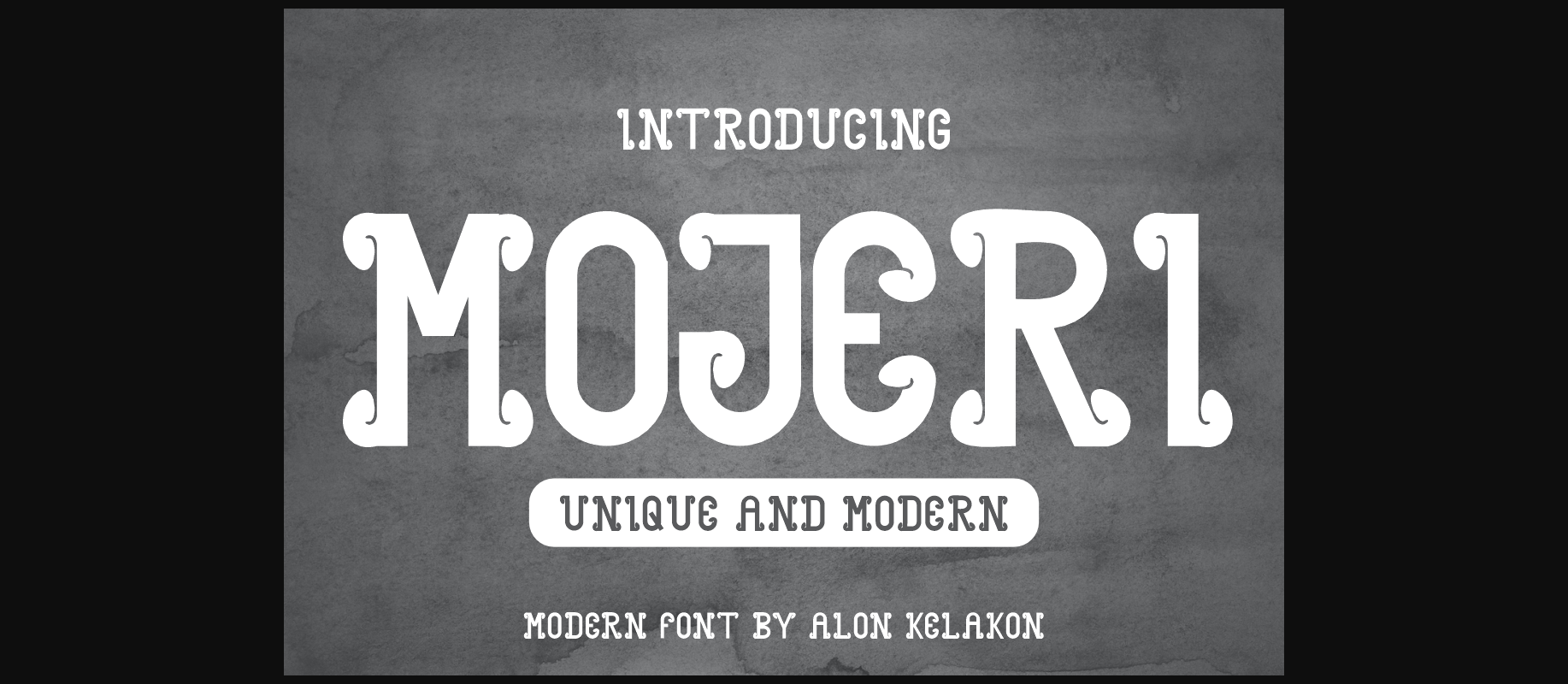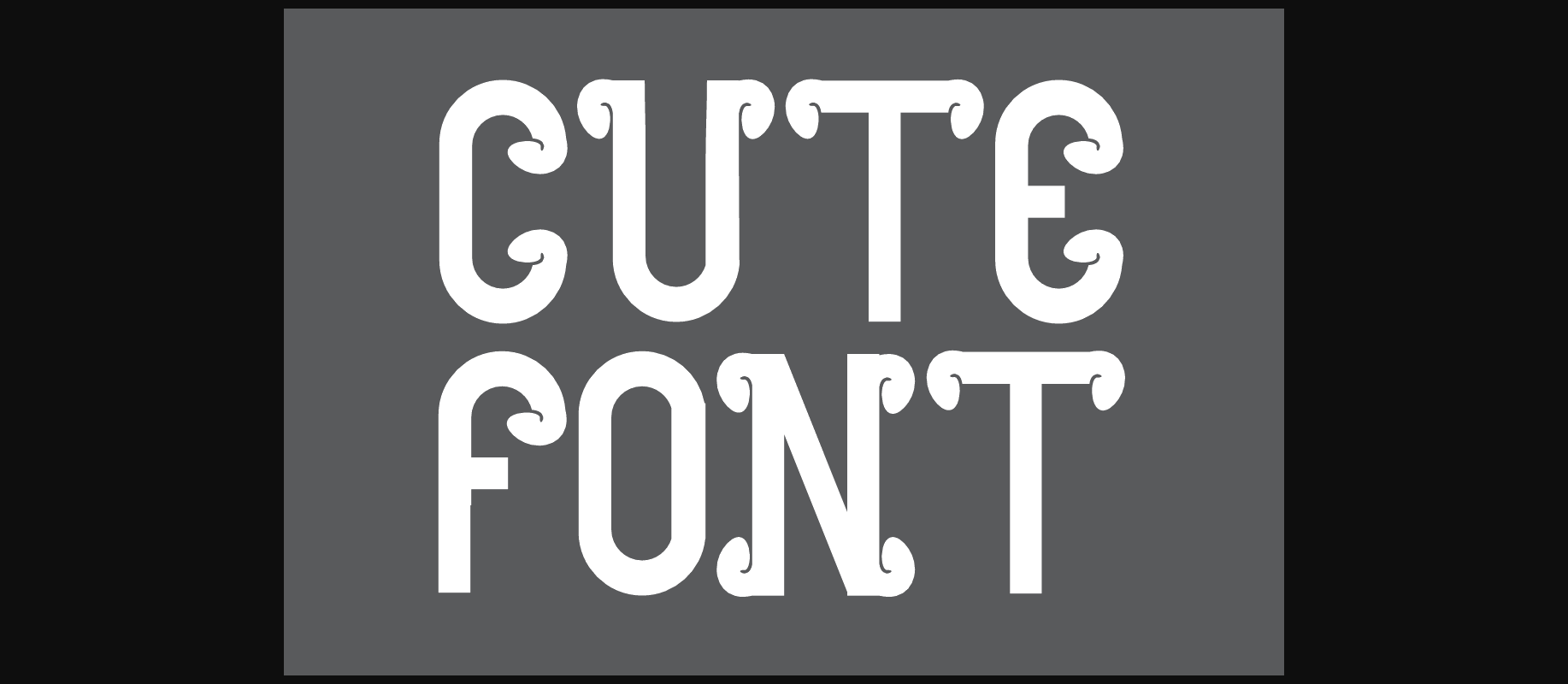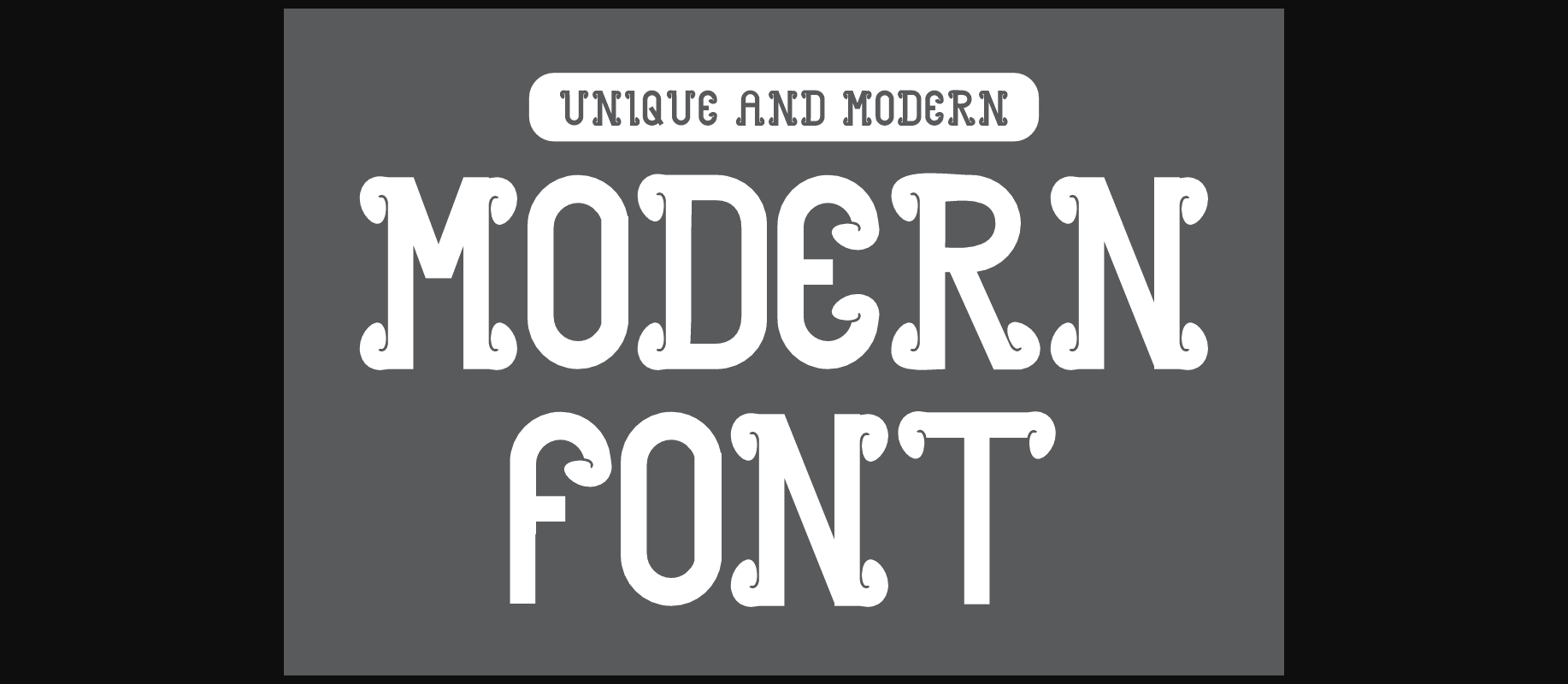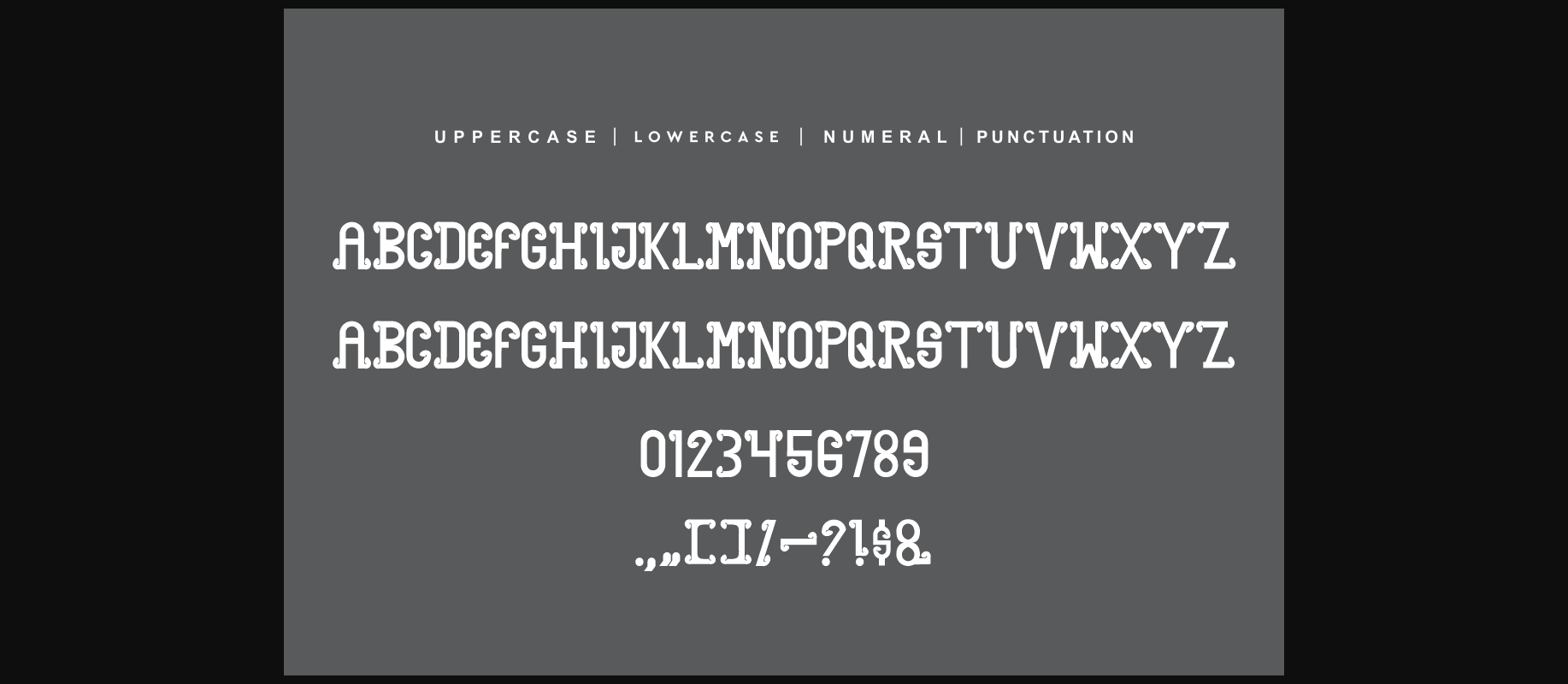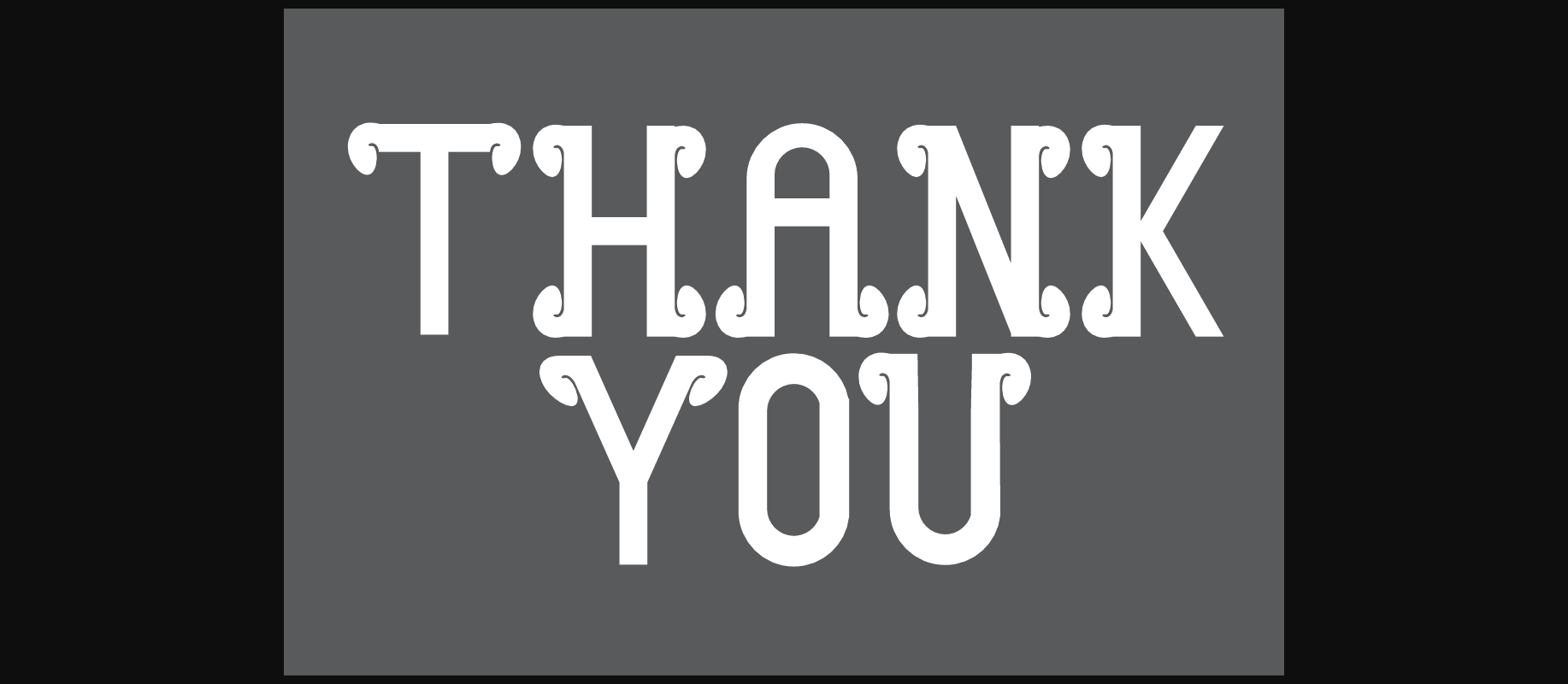
HomeDecorative FontsMojeri Font Decorative Fonts Mojeri Font FacebookXPinterestWhatsApp 1 of 8 ... Mojeri Font Poster 2... Mojeri Font Poster 3... Mojeri Font Poster 4... Mojeri Font Poster 5... Mojeri Font Poster 6... Mojeri Font Poster 7... Mojeri Font Poster 8... About Mojeri Font Mojeri is a sweet and cursive decorative font. This gentle font will look gorgeous on a variety of design ideas. It will add a joyful and romantic touch to each of your projects! DOWNLOAD NOW People also explored Cluisher Brush Font Golden Arrow Font The Pretty Font Disco Neon Sign Font Ghonia Font Religiosity Font Vuku Font Lala Lulu Font Baking Powder Font 299 0 TagsMojeriMojeri Font Previous articleMooje FontNext articleLittle Star Font LEAVE A REPLY Cancel reply Comment: Please enter your comment! Name:* Please enter your name here Email:* You have entered an incorrect email address! Please enter your email address here Website: Save my name, email, and website in this browser for the next time I comment. Personal Use Free Indonesia Dermawan Personal Use Free Read more about this font Travelling Free Brush Personal Use Free Read more about this font The Quick Personal Use Free Read more about this font Manhattan Personal Use Free Read more about this font BLOG Fonts That Capture the Spirit of New York City New York City is more than just a place—it’s an experience, a rhythm, a visual language... Where to Buy American Fonts Online in 2024 Free vs Paid Fonts: Why Investing in Premium Fonts Is Worth It 5 Fonts That Will Dominate Design Trends in 2026